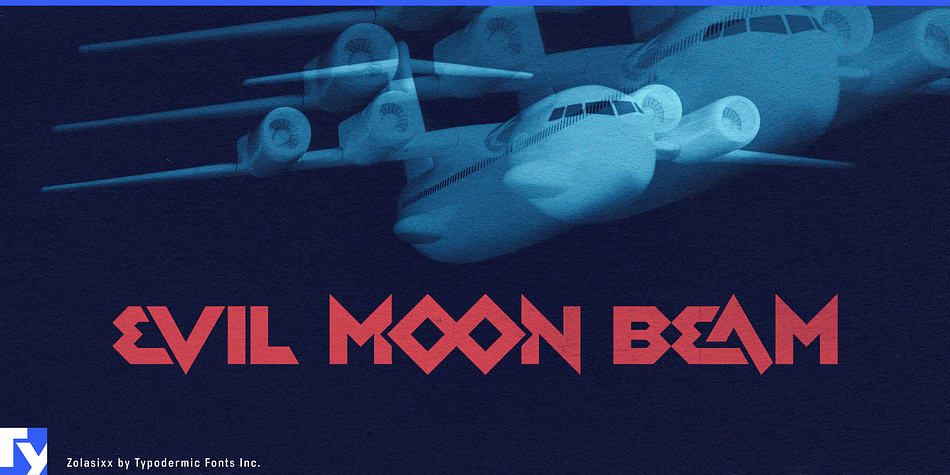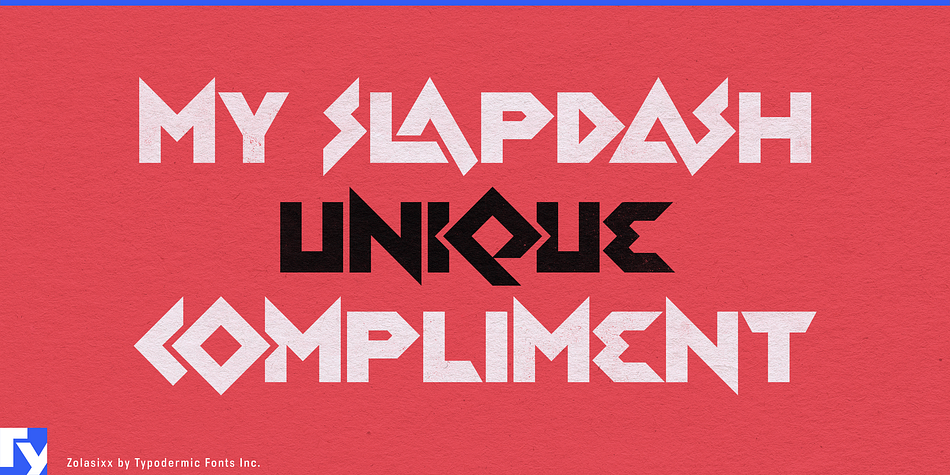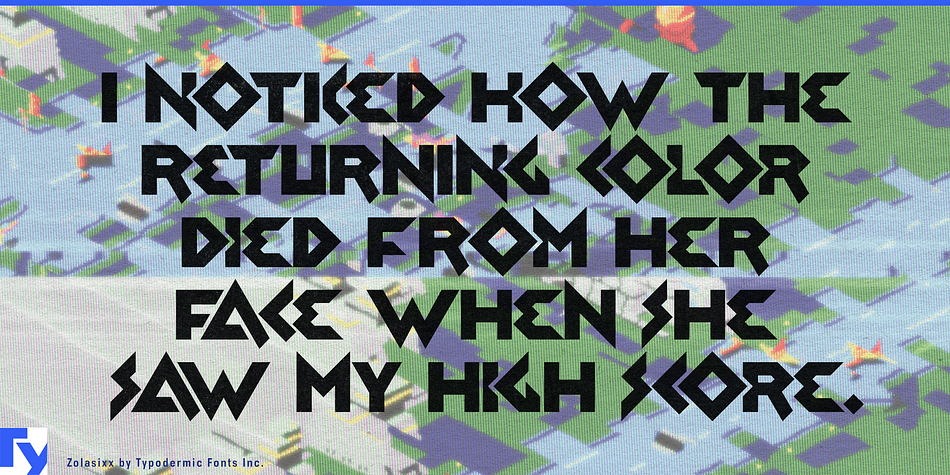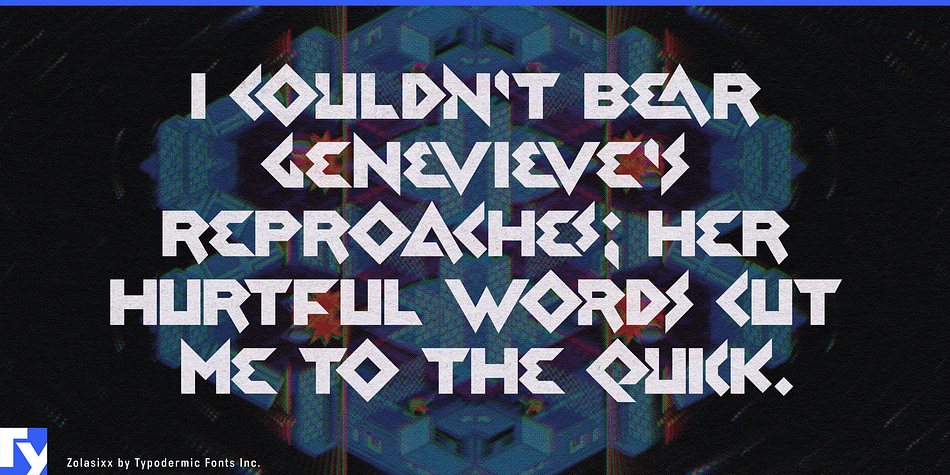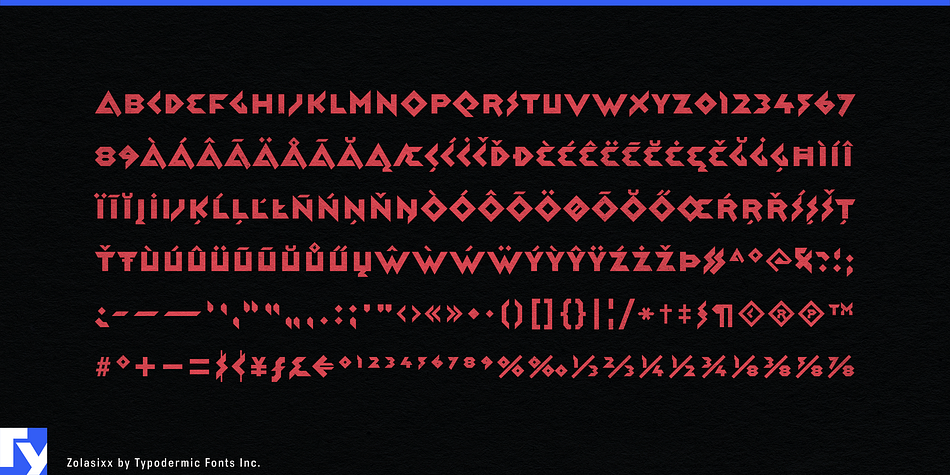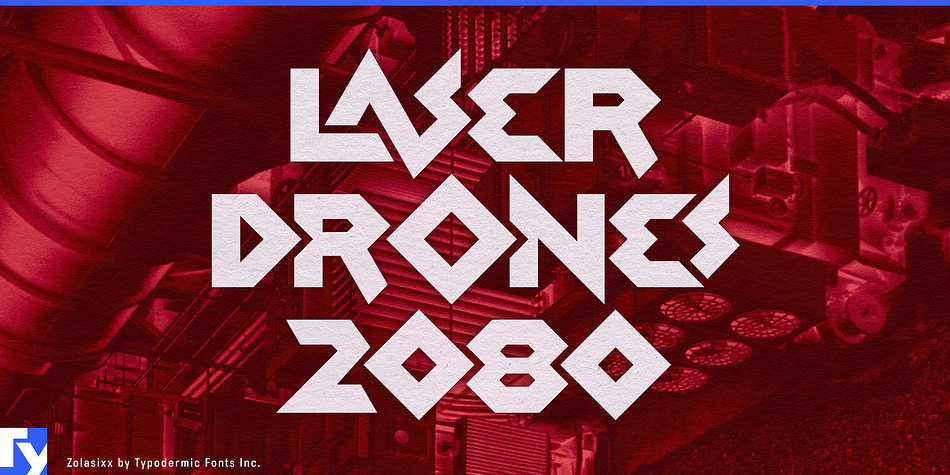
Zolasixx is a display font published by Typodermic Fonts Inc.
Zolasixx is an angular techno font, inspired by the video game Zaxxon. In OpenType savvy applications, alternate letters are swapped for a more customized look.